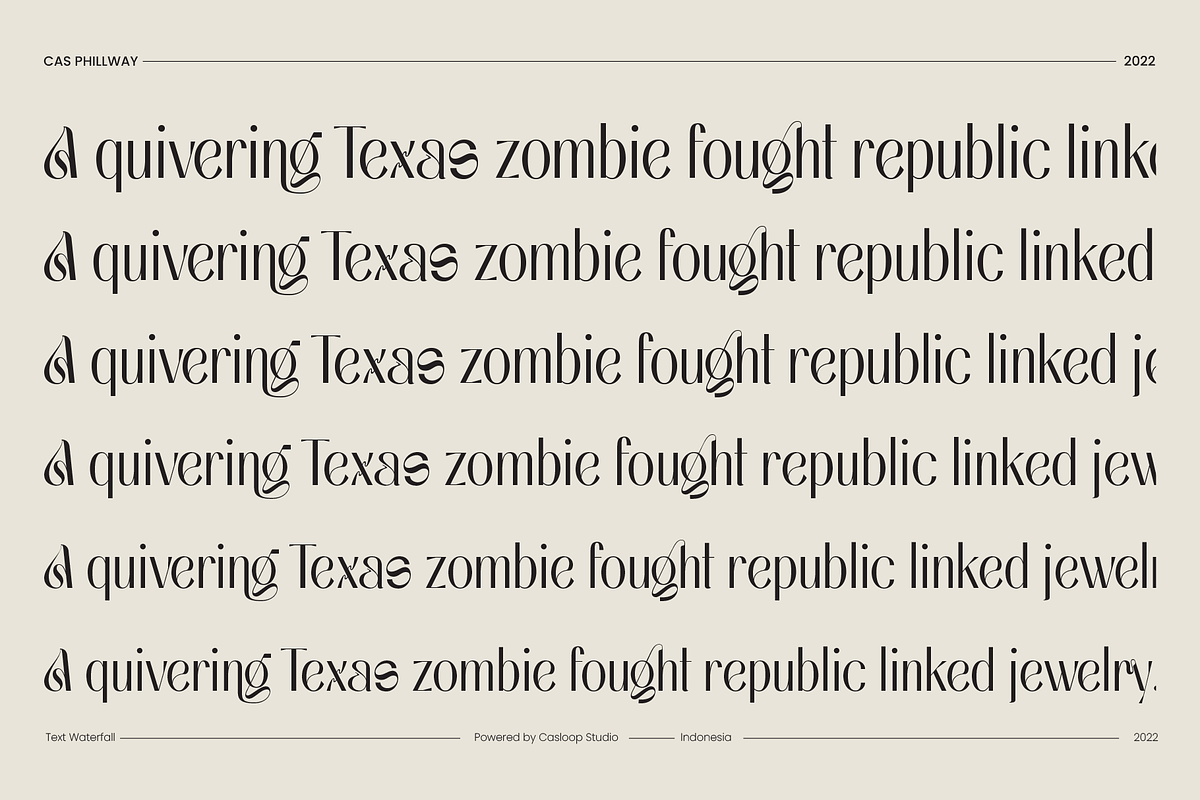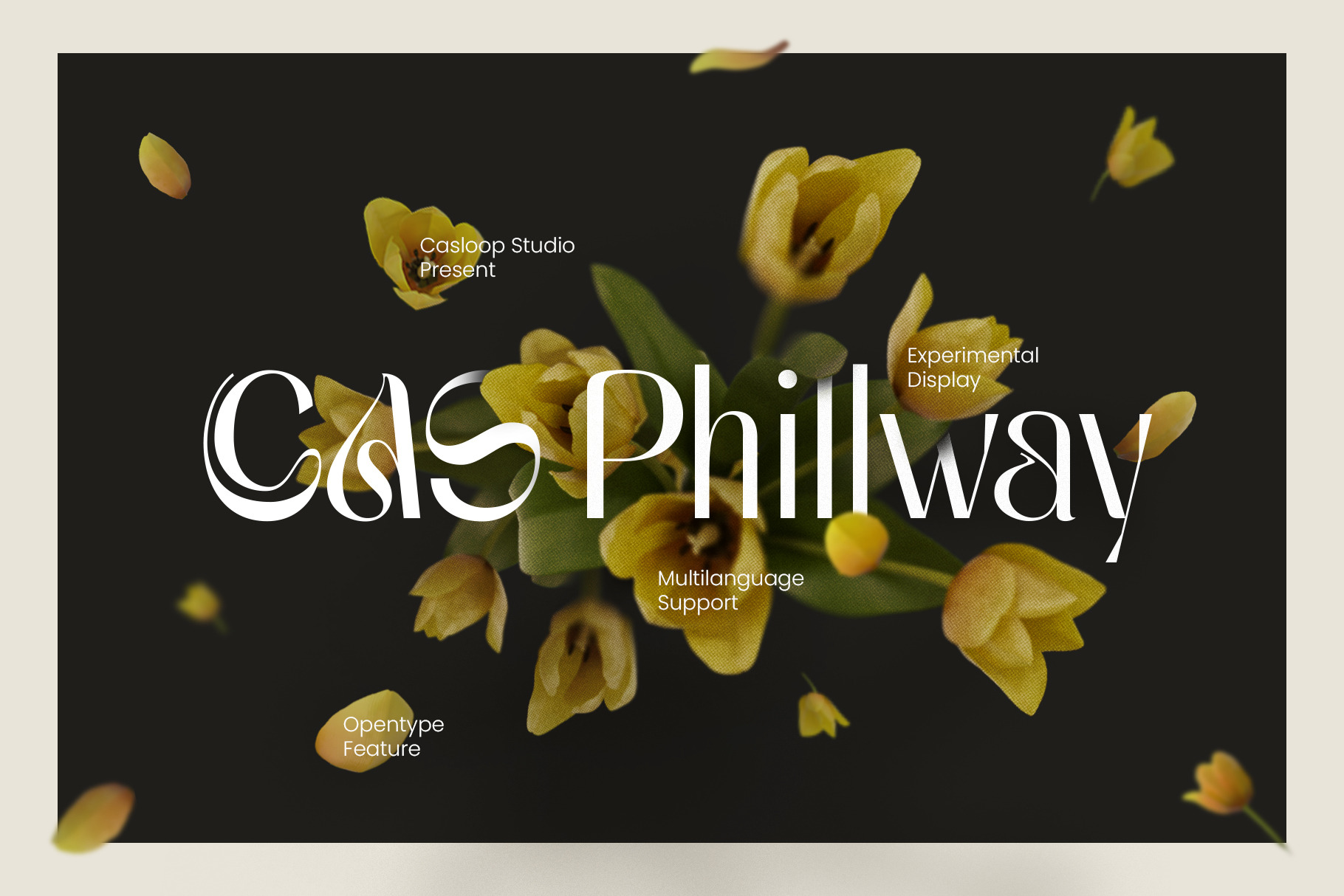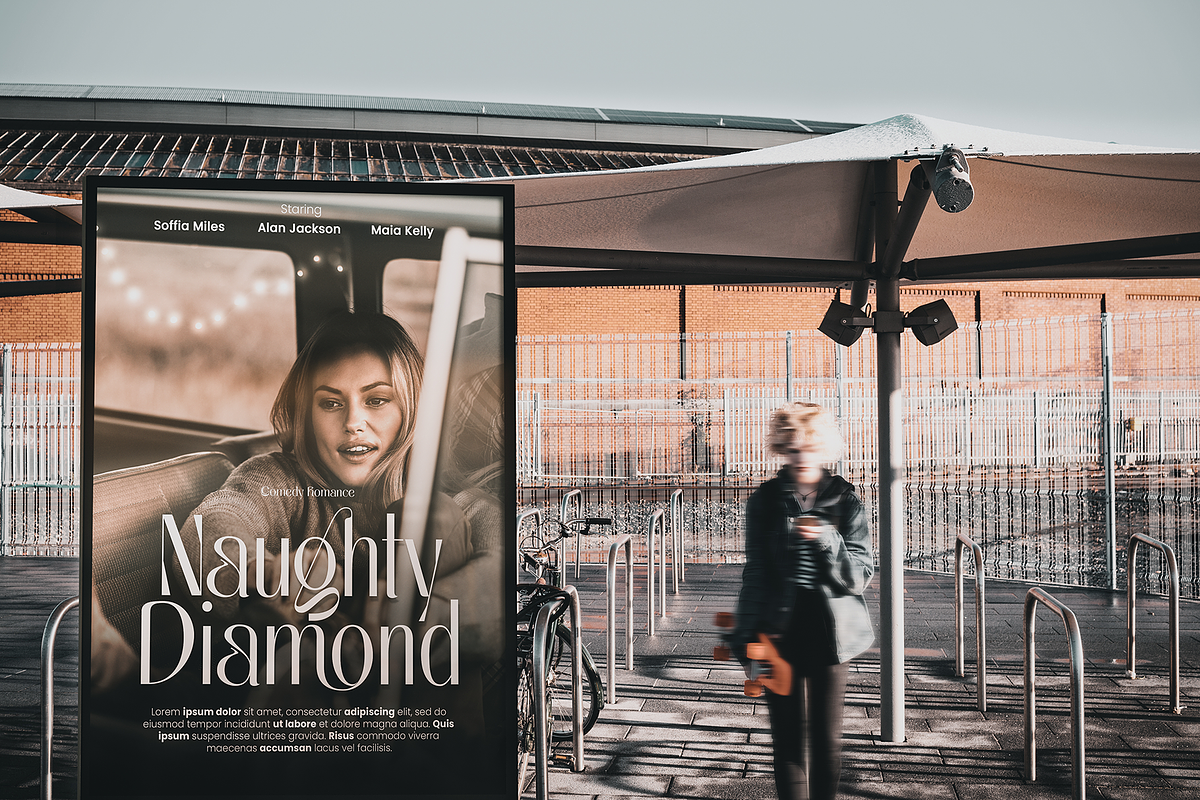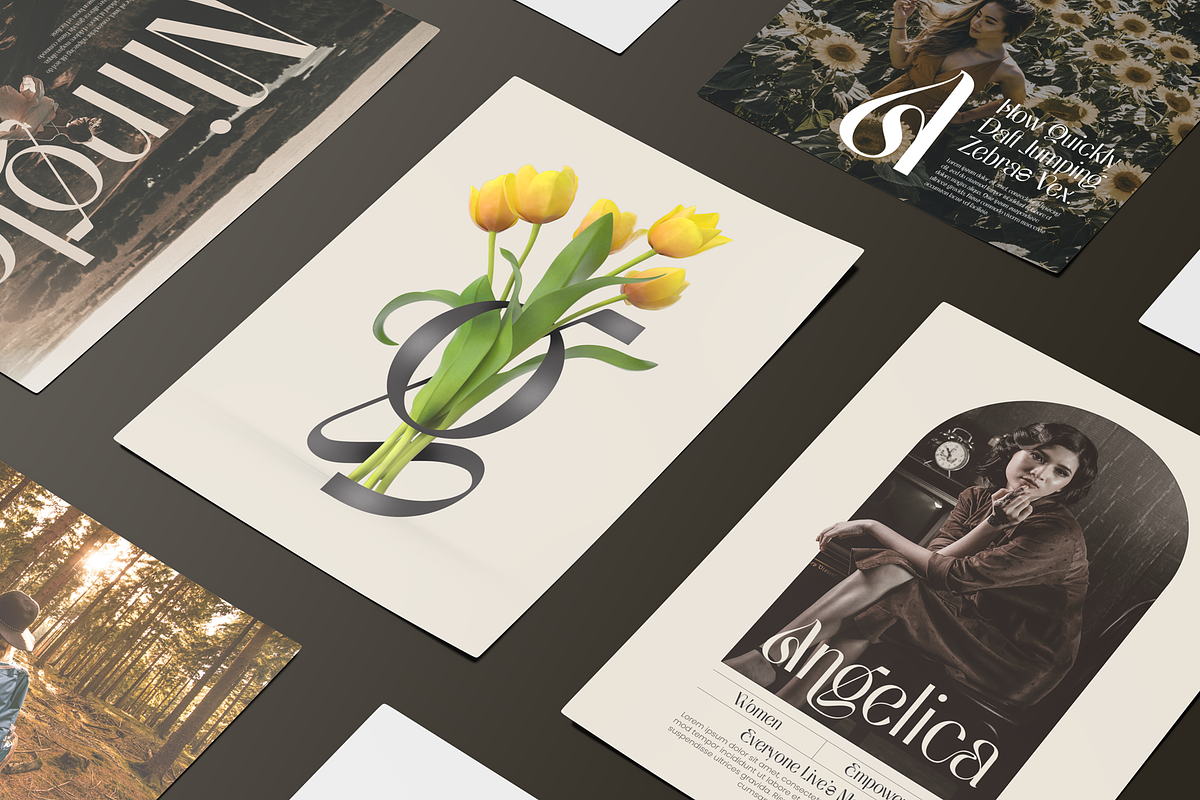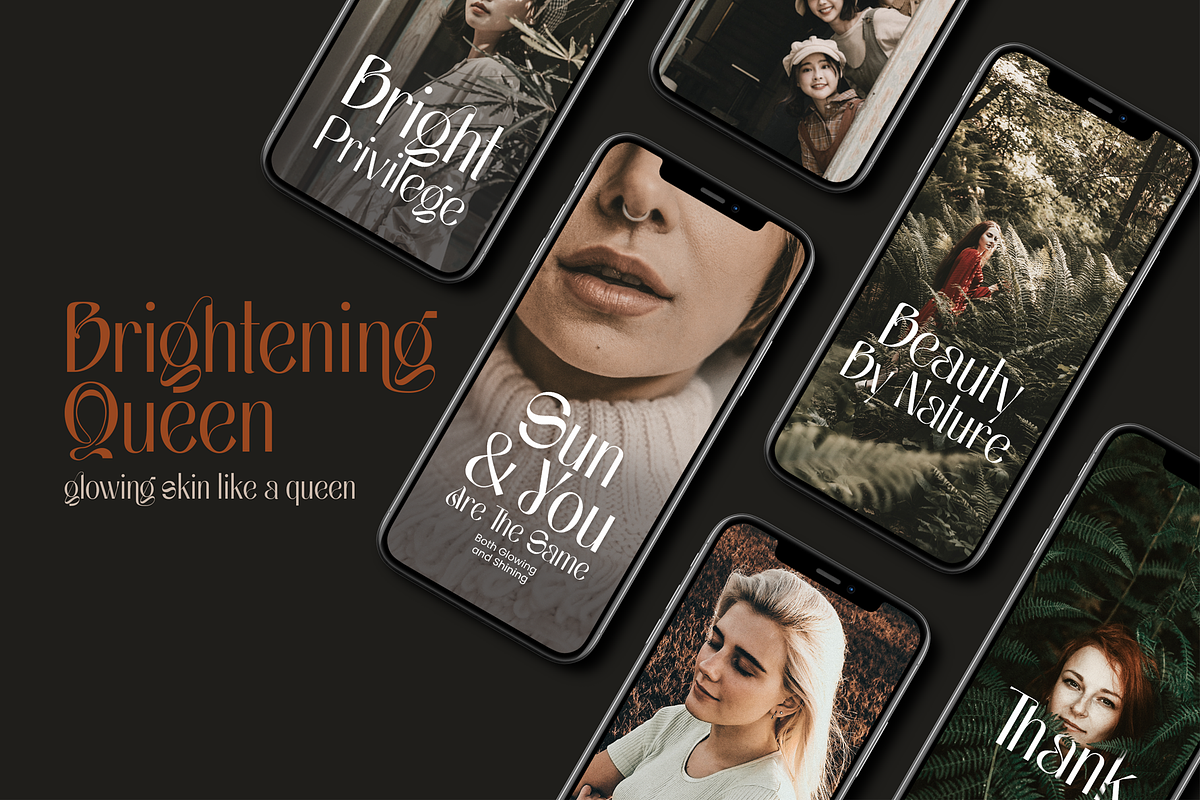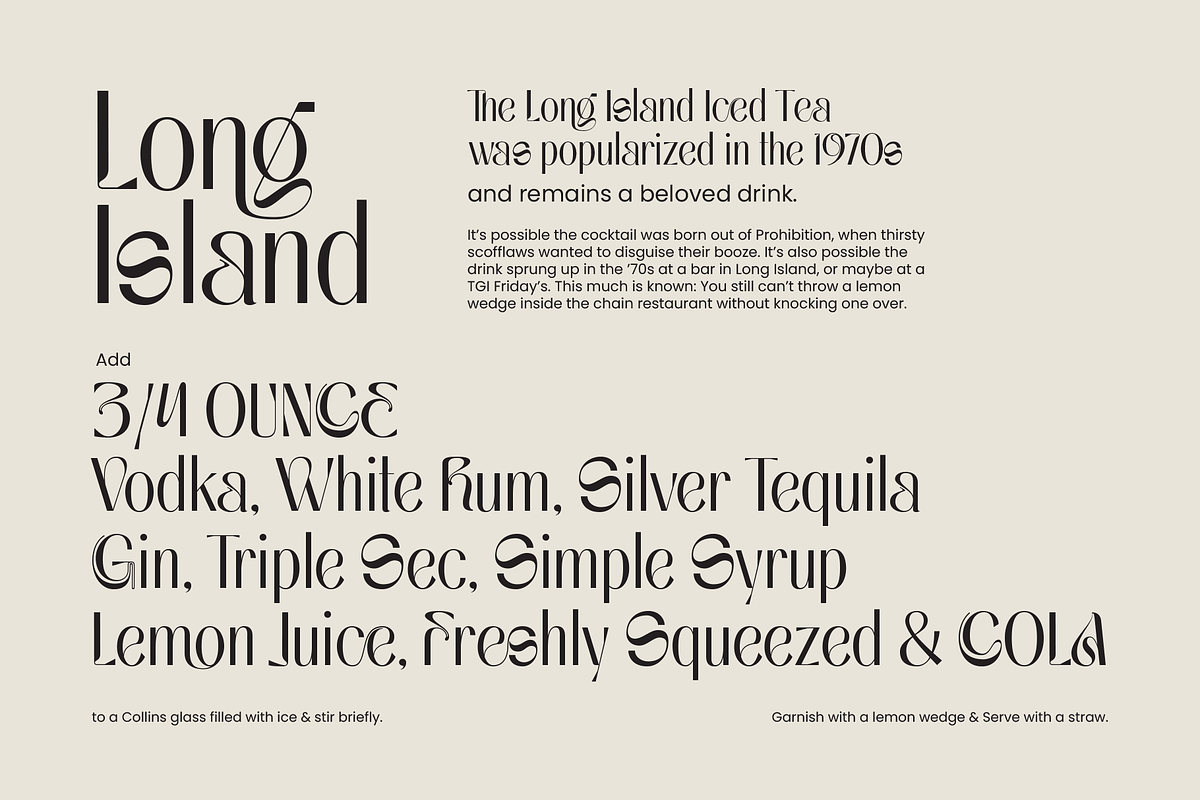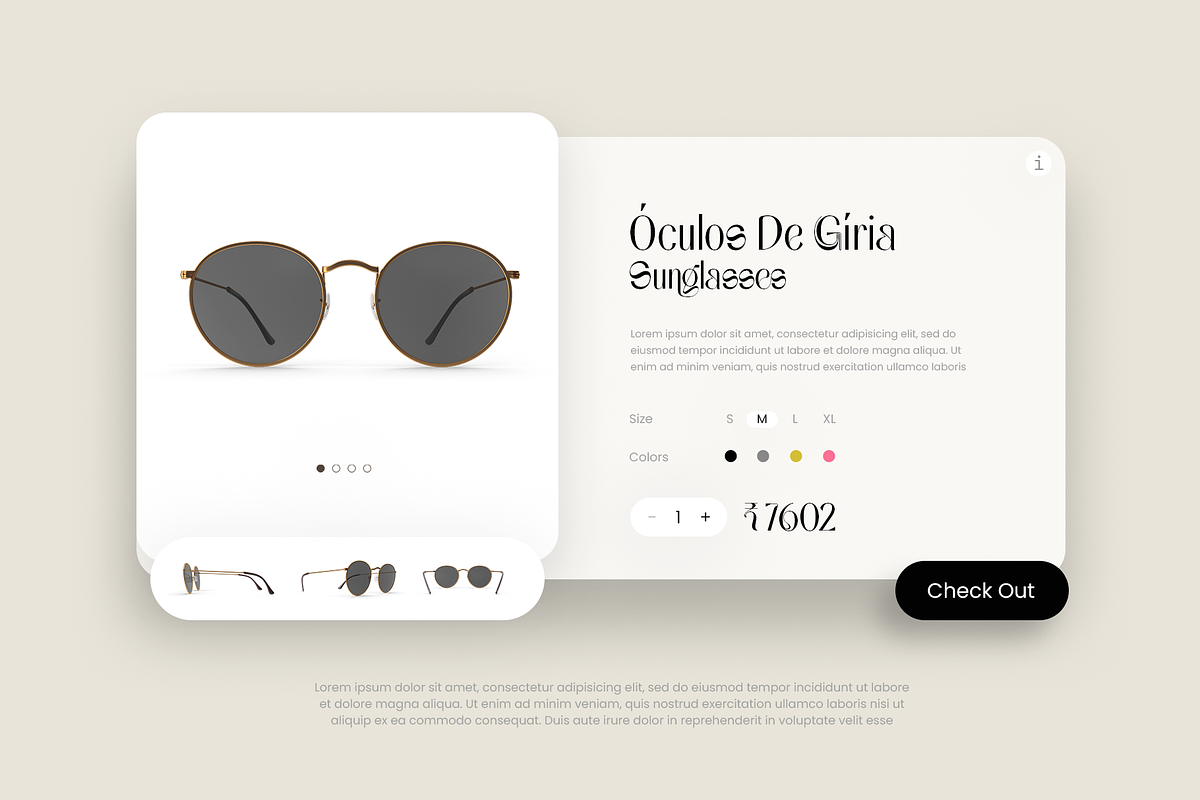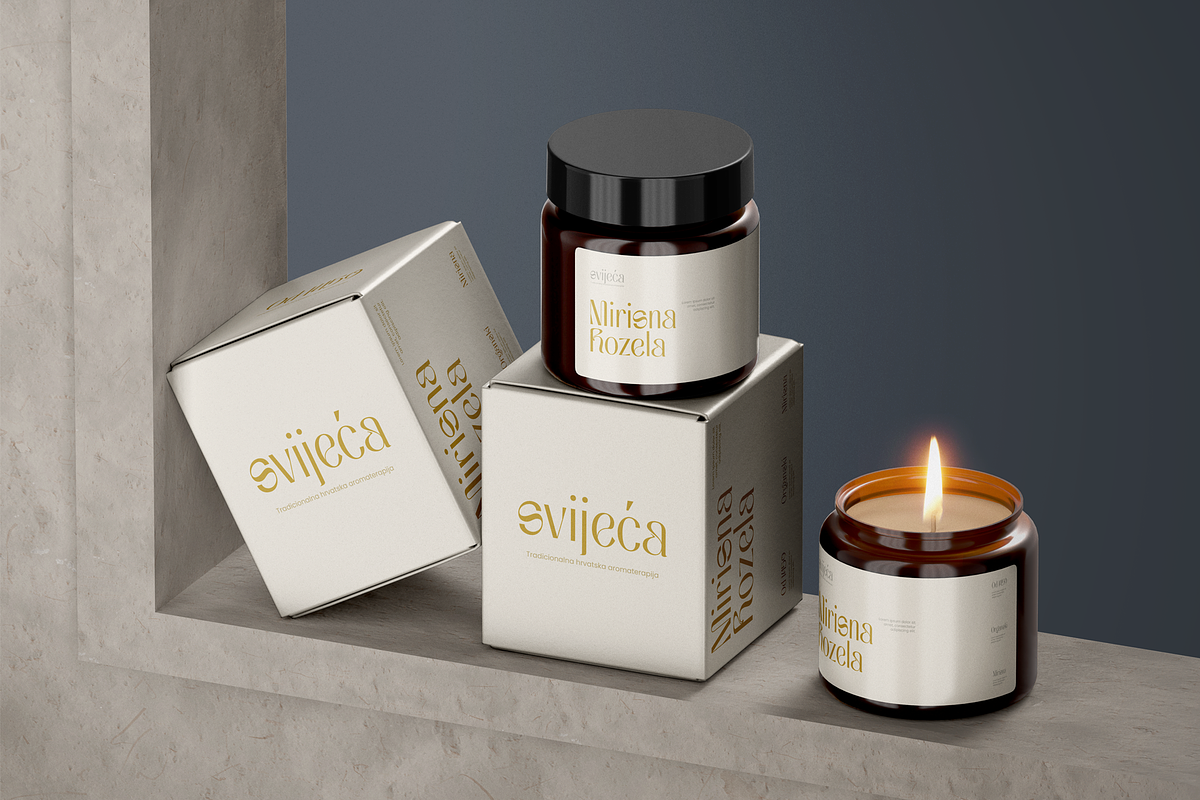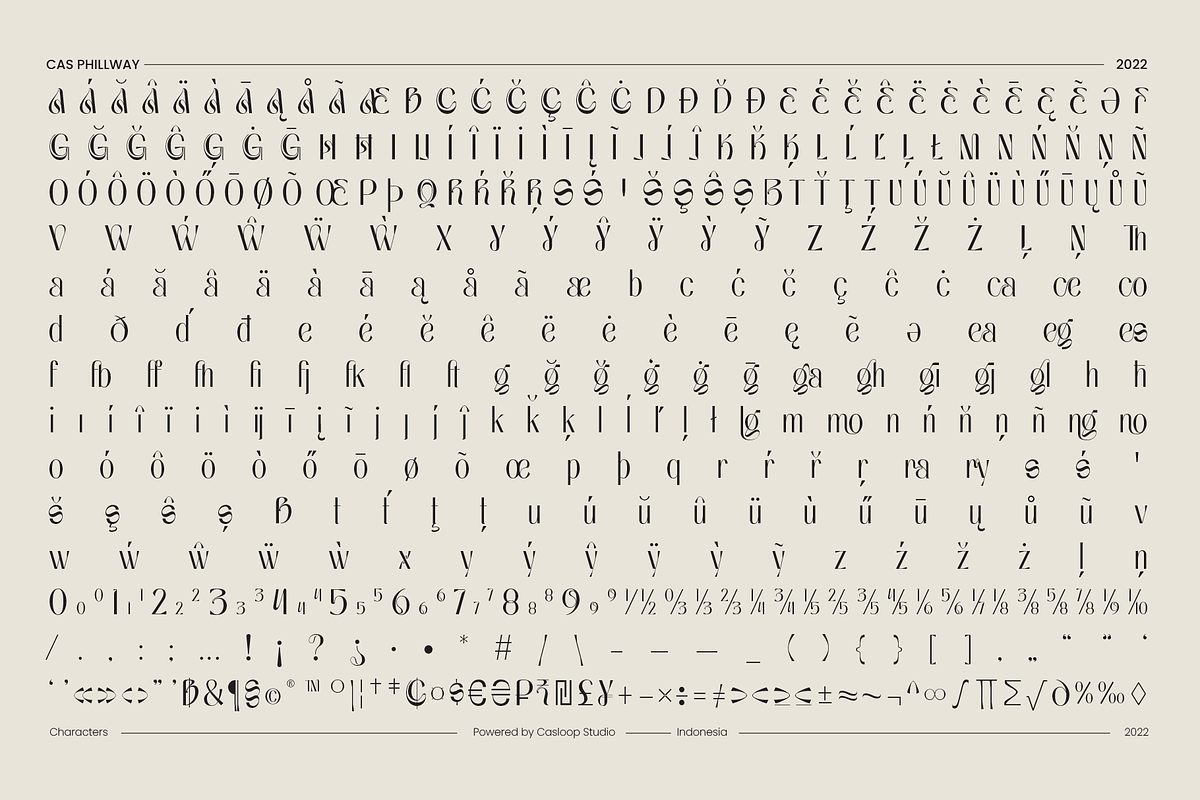
Cas Phillway Elegant Font
Introducing Cas Phillway
a world-class typography marvel that transcends conventional design, offering a dramatic twist to the sans-serif and experimental display font. This font introduces a contemporary aesthetic with soft curves, adding a delicate and graceful touch to your design projects.
Cas Phillway brings a fresh and contemporary aesthetic to the forefront, utilizing its unique sans-serif and experimental classification. The font's soft curves and impressive style, infused with an eccentric twist, redefine beauty in typography, making it an ideal choice for website development, packaging, logos, and branding.
Prepare to be captivated by Cas Phillway's exceptional qualities, balancing dangerously stylish elements with perfect legibility, providing a pure joy of creativity. Its gorgeous aesthetics elevate your projects to a world-class level, ensuring a first-class impression filled with love and sophistication.
Cas Phillway is not just a font; it's an experience filled with graceful charm and ornamental details. Its fun and original style guarantees satisfaction and seamless integration into various design contexts. The single variant simplicity ensures ease of use, making it a versatile choice for different creative endeavors.
- Ligatures & alternates